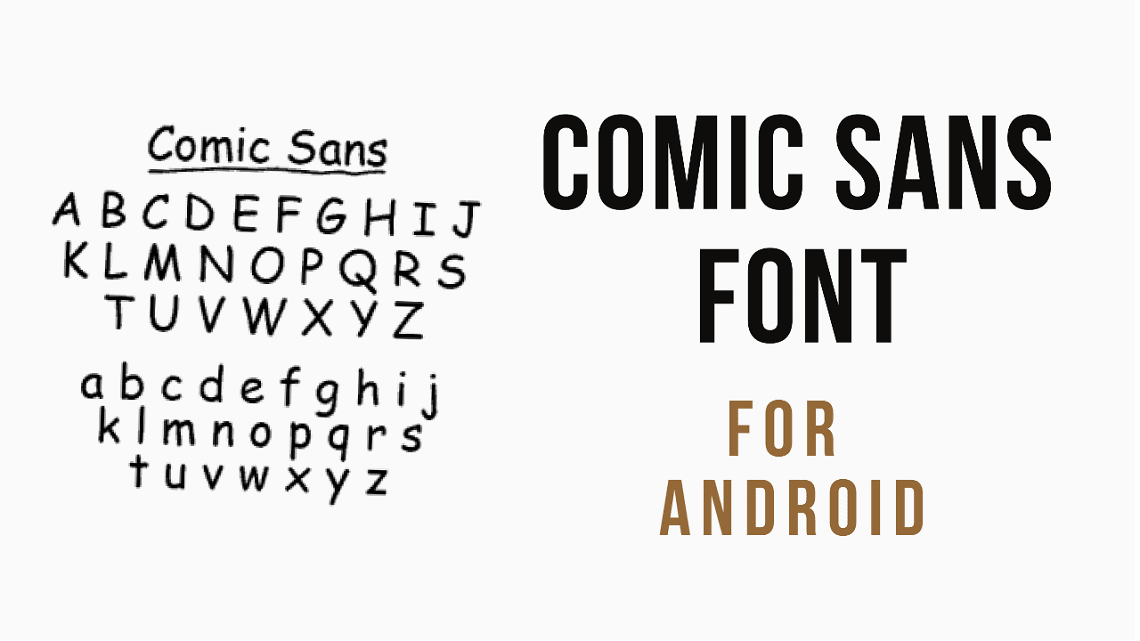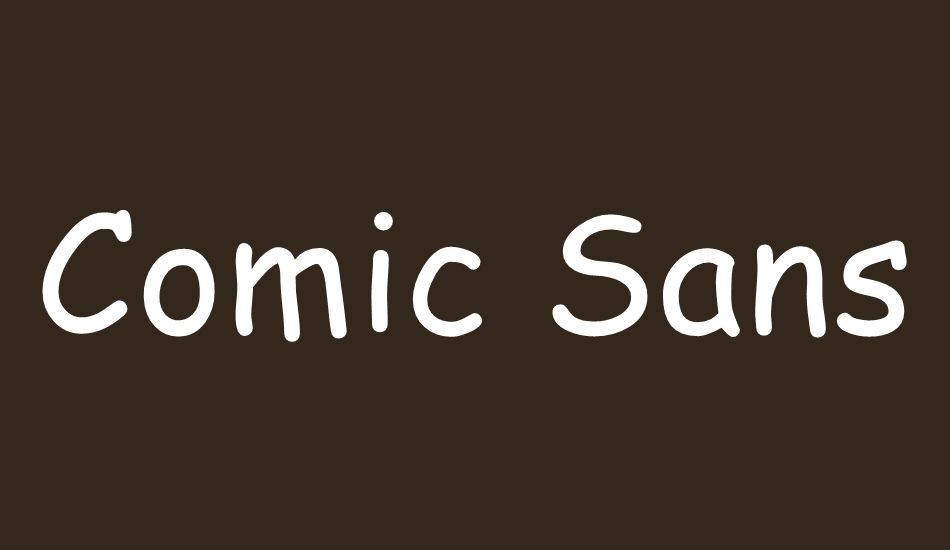
Comic Sans Samsung Font - Web in this article, you’ll get to know how you can download and install comic sans font on your android device. Everything is ok so far, except. Web i recently built a comics website at www.pipanni.com that uses the comic sans font. Comic neue is an original reinterpretation of the classic, comic. Comic sans® pro latin flipfont comic sans® pro. It was designed by vincent connare in 1994, and is included with. Comic sans is arguably the best font ever! Flipfont™ changes the user interface font on your phone.
Flipfont™ changes the user interface font on your phone. Web in this article, you’ll get to know how you can download and install comic sans font on your android device. Comic sans is arguably the best font ever! Comic neue is an original reinterpretation of the classic, comic. Everything is ok so far, except. Comic sans® pro latin flipfont comic sans® pro. Web i recently built a comics website at www.pipanni.com that uses the comic sans font. It was designed by vincent connare in 1994, and is included with.
Comic neue is an original reinterpretation of the classic, comic. Comic sans® pro latin flipfont comic sans® pro. Web in this article, you’ll get to know how you can download and install comic sans font on your android device. Comic sans is arguably the best font ever! Flipfont™ changes the user interface font on your phone. Everything is ok so far, except. Web i recently built a comics website at www.pipanni.com that uses the comic sans font. It was designed by vincent connare in 1994, and is included with.
Comic neue is an original reinterpretation of the classic, comic. Flipfont™ changes the user interface font on your phone. Web in this article, you’ll get to know how you can download and install comic sans font on your android device. Comic sans® pro latin flipfont comic sans® pro. Comic sans is arguably the best font ever!
Comic Sans Font
Flipfont™ changes the user interface font on your phone. It was designed by vincent connare in 1994, and is included with. Comic neue is an original reinterpretation of the classic, comic. Everything is ok so far, except. Web i recently built a comics website at www.pipanni.com that uses the comic sans font.
Comic sans® pro latin flipfont comic sans® pro. It was designed by vincent connare in 1994, and is included with. Everything is ok so far, except. Comic neue is an original reinterpretation of the classic, comic. Web i recently built a comics website at www.pipanni.com that uses the comic sans font.
It was designed by vincent connare in 1994, and is included with. Everything is ok so far, except. Comic neue is an original reinterpretation of the classic, comic. Comic sans® pro latin flipfont comic sans® pro. Flipfont™ changes the user interface font on your phone.
Comic sans® pro latin flipfont comic sans® pro. Web i recently built a comics website at www.pipanni.com that uses the comic sans font. Web in this article, you’ll get to know how you can download and install comic sans font on your android device. Comic sans is arguably the best font ever! It was designed by vincent connare in 1994,.
Comic sans is arguably the best font ever! Flipfont™ changes the user interface font on your phone. Everything is ok so far, except. Web in this article, you’ll get to know how you can download and install comic sans font on your android device. It was designed by vincent connare in 1994, and is included with.
Comic Sans Font Dafont Free
Everything is ok so far, except. Web in this article, you’ll get to know how you can download and install comic sans font on your android device. Comic neue is an original reinterpretation of the classic, comic. Web i recently built a comics website at www.pipanni.com that uses the comic sans font. Comic sans is arguably the best font ever!
Comic Sans (tipo) • Tipos con carácter Blog sobre tipografía
Comic sans® pro latin flipfont comic sans® pro. Web in this article, you’ll get to know how you can download and install comic sans font on your android device. Web i recently built a comics website at www.pipanni.com that uses the comic sans font. Everything is ok so far, except. Flipfont™ changes the user interface font on your phone.
Comic Sans MS Regular Download For Free, View Sample Text, Rating And
Comic sans is arguably the best font ever! It was designed by vincent connare in 1994, and is included with. Comic sans® pro latin flipfont comic sans® pro. Comic neue is an original reinterpretation of the classic, comic. Flipfont™ changes the user interface font on your phone.
Comic Sans MS font font
Web i recently built a comics website at www.pipanni.com that uses the comic sans font. Everything is ok so far, except. Web in this article, you’ll get to know how you can download and install comic sans font on your android device. Flipfont™ changes the user interface font on your phone. It was designed by vincent connare in 1994, and.
Web In This Article, You’ll Get To Know How You Can Download And Install Comic Sans Font On Your Android Device.
Web i recently built a comics website at www.pipanni.com that uses the comic sans font. Flipfont™ changes the user interface font on your phone. Comic sans® pro latin flipfont comic sans® pro. Comic sans is arguably the best font ever!
It was designed by vincent connare in 1994, and is included with. Comic neue is an original reinterpretation of the classic, comic.